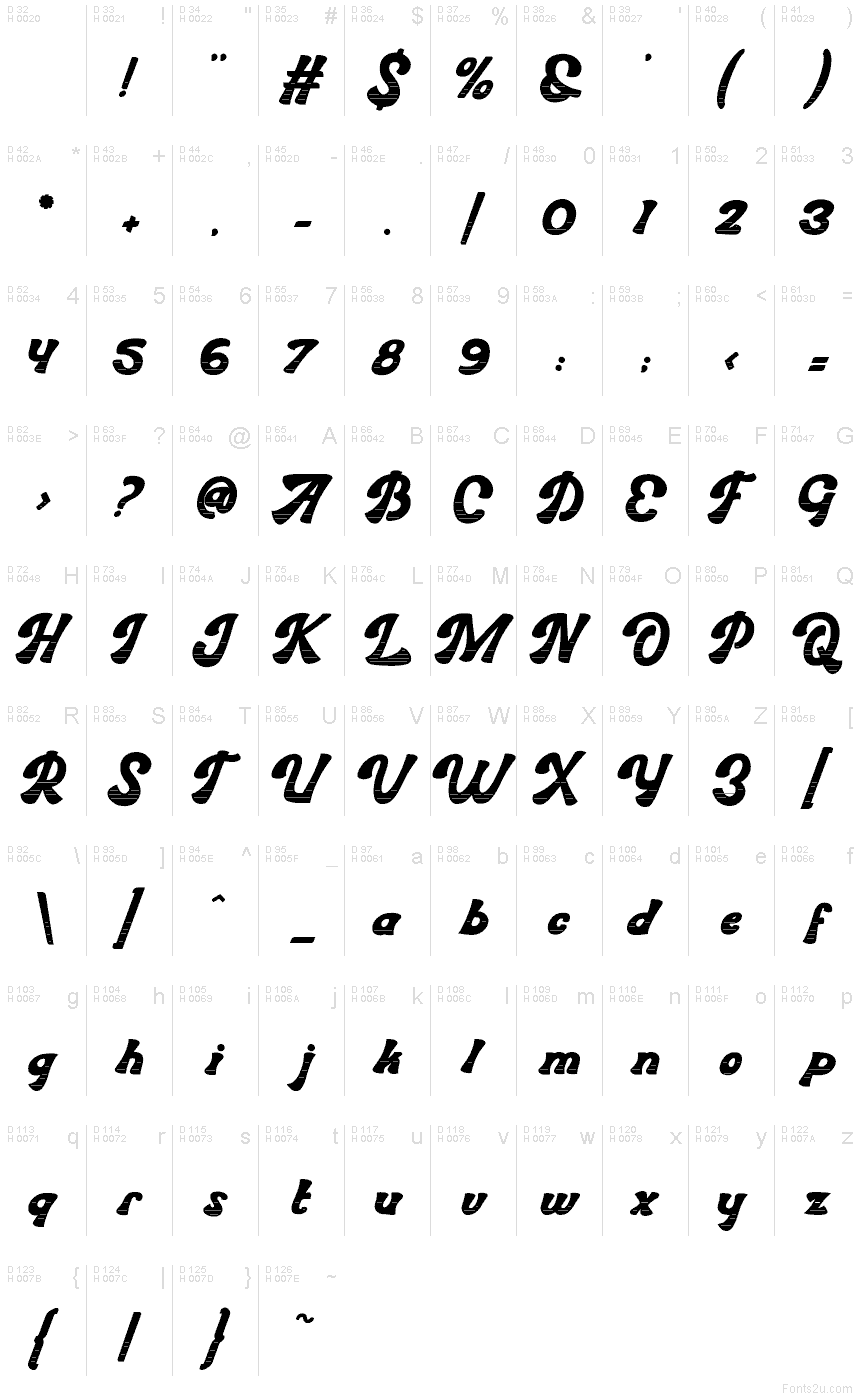
Sweet Joys Half Line
Sweet Joys Half Line font by PutraCetol Studio is a free brush font marked by bold and thick strokes that leave a mark. Vintage-inspired with retro aesthetics, each letter extends mysterious vibes with expressive forms that showcase their unique presence. Themes of nostalgia blend to produce impeccable results with headlines as well as body texts.
The whimsical and charming appeal of Sweet Joys Half Line makes it a brilliant tool to have for advertising projects, product branding designs, apparel texts, headlines and sub-headings, book covers designs (digital and print), label tags ideas, or even signature logos.